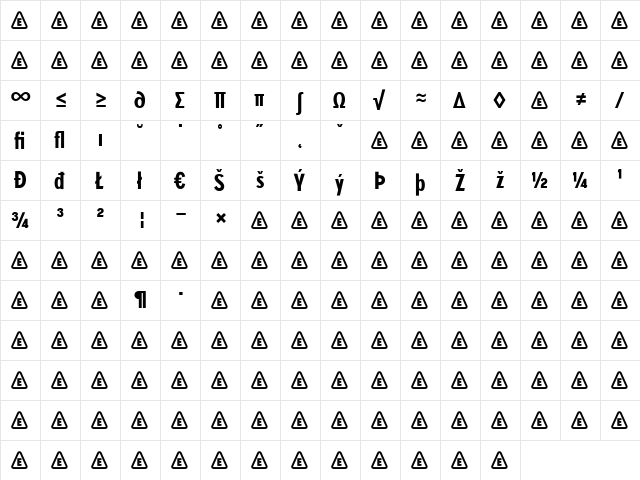
SuperGroteskB Regular
Design Context for SuperGroteskB Typeface
SuperGroteskB has the quiet confidence of well-executed sans-serif typography: versatile, unobtrusive, and dependable at any size.
Font Pairing: Works well alongside a characterful serif or display font that can carry the expressive load while SuperGroteskB handles the functional copy.
Pro Tip: Pair SuperGroteskB with a display or serif font for headlines — its neutral character makes it an excellent supporting player in complex typographic systems.